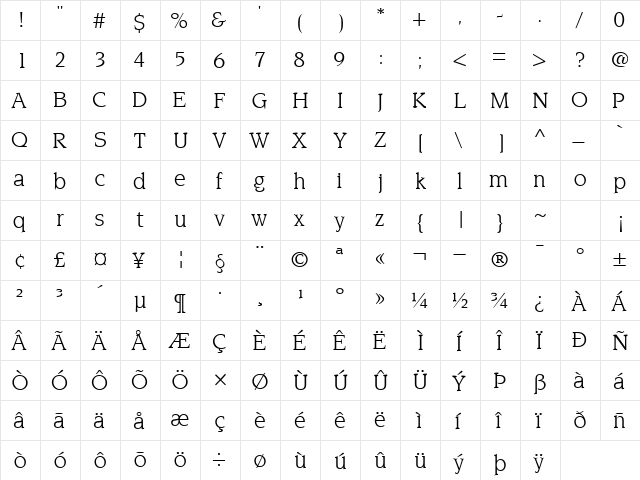
TridentSSK Regular
Design Context for TridentSSK Typeface
TridentSSK takes a measured approach to typography — its balanced proportions and neutral character make it a reliable workhorse for both digital and print work.
Pro Tip: Use TridentSSK in both headline and body roles to test its range before committing to a single application.